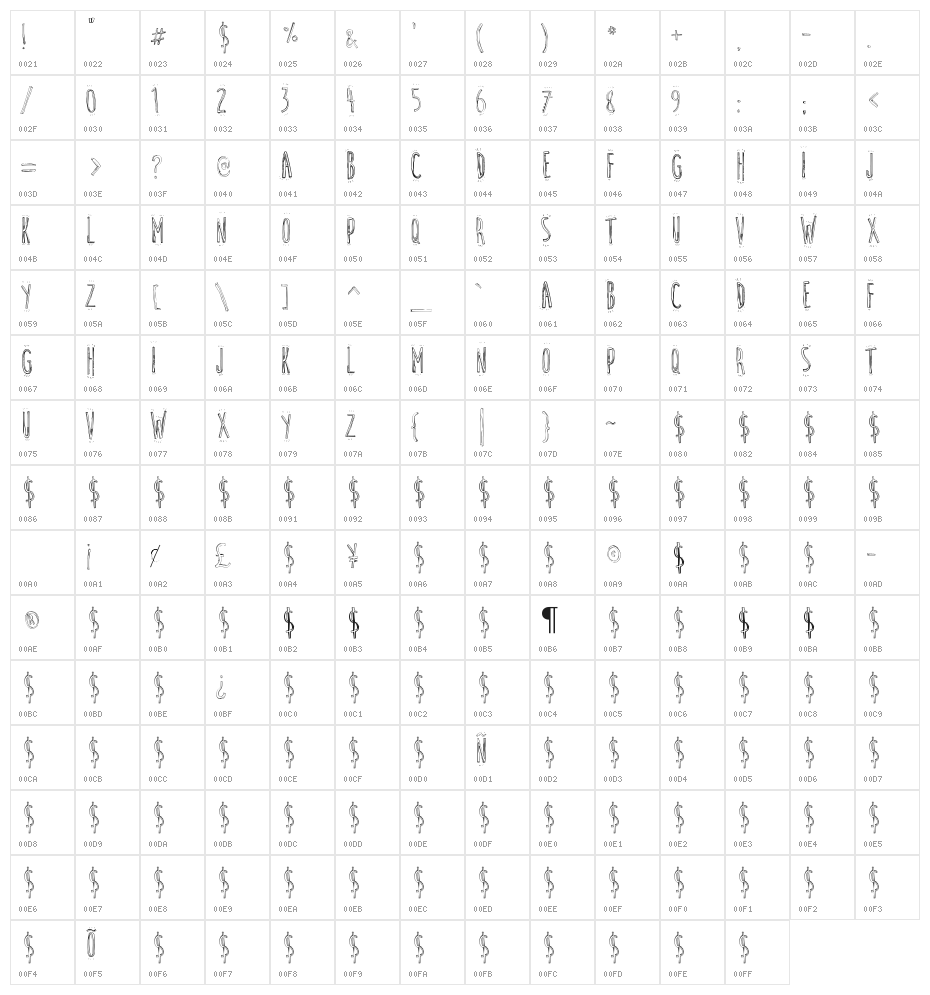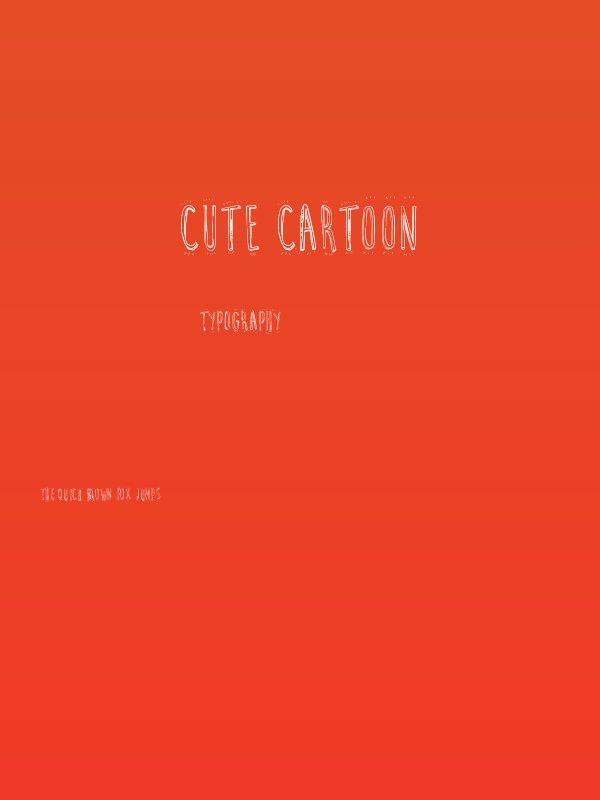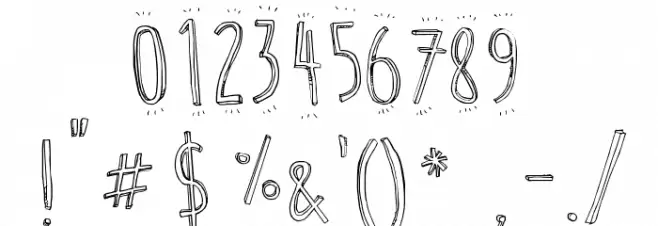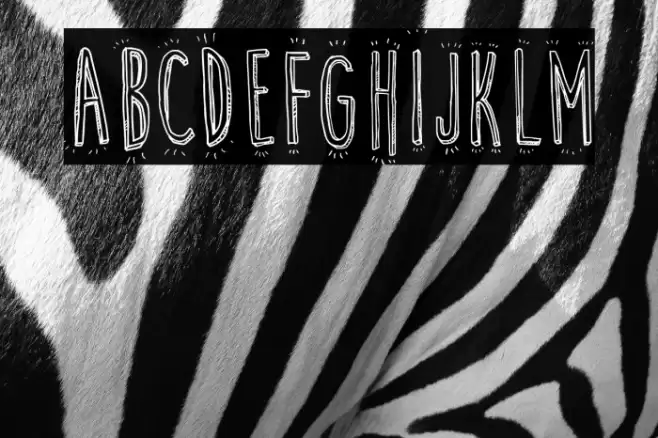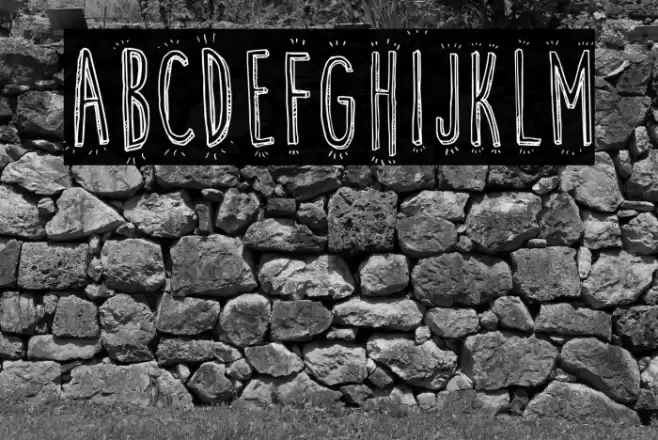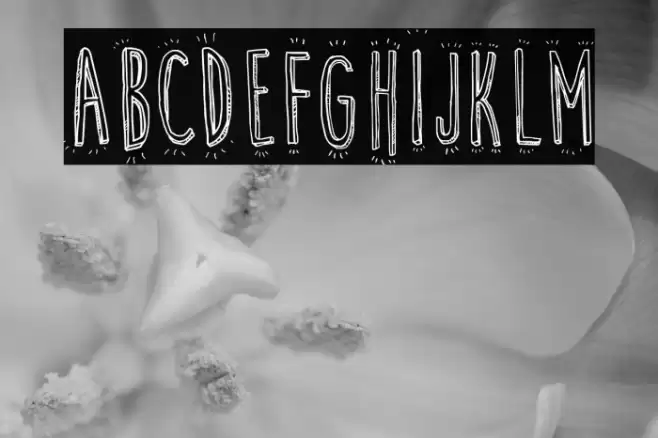
Cute Cartoon Font
Cute Cartoon Description
This playful and whimsical font features a hand-drawn style with a cartoonish flair. Each character is outlined with a slightly uneven stroke, giving it a lively and dynamic appearance. The letters are tall and narrow, with a consistent height across both uppercase and lowercase characters. The numbers and special characters maintain the same playful aesthetic, making the font versatile for various creative projects. The overall look is casual and fun, perfect for adding a touch of personality to any design.
CUTE-CARTOON UPPERCASE
CUTE-CARTOON LOWERCASE
CUTE-CARTOON OTHER CHARS
| Overall Style | Cartoonish, Playful |
| Proposed Projects | Ideal for children's books, comic strips, playful branding, greeting cards, and social media graphics. |